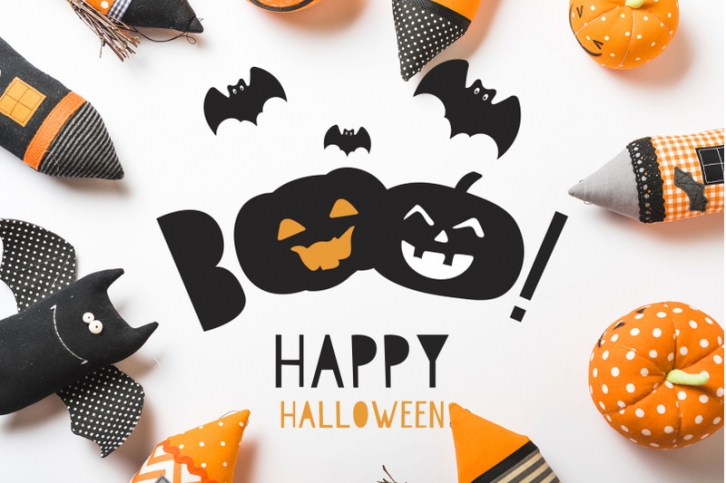
Kids Halloween Font and Graphics Set Download
Halloween is coming soon! Introducing Kids Halloween Font and Graphics Set. This set includes childhood icons, cards and seamless patterns. Perfect for preparing printed paper products, packaging, t-shirts design and also for other ideas. Happy holiday!
FONT INCLUDED
• Uppercase letters
• Punctuation
• Symbols